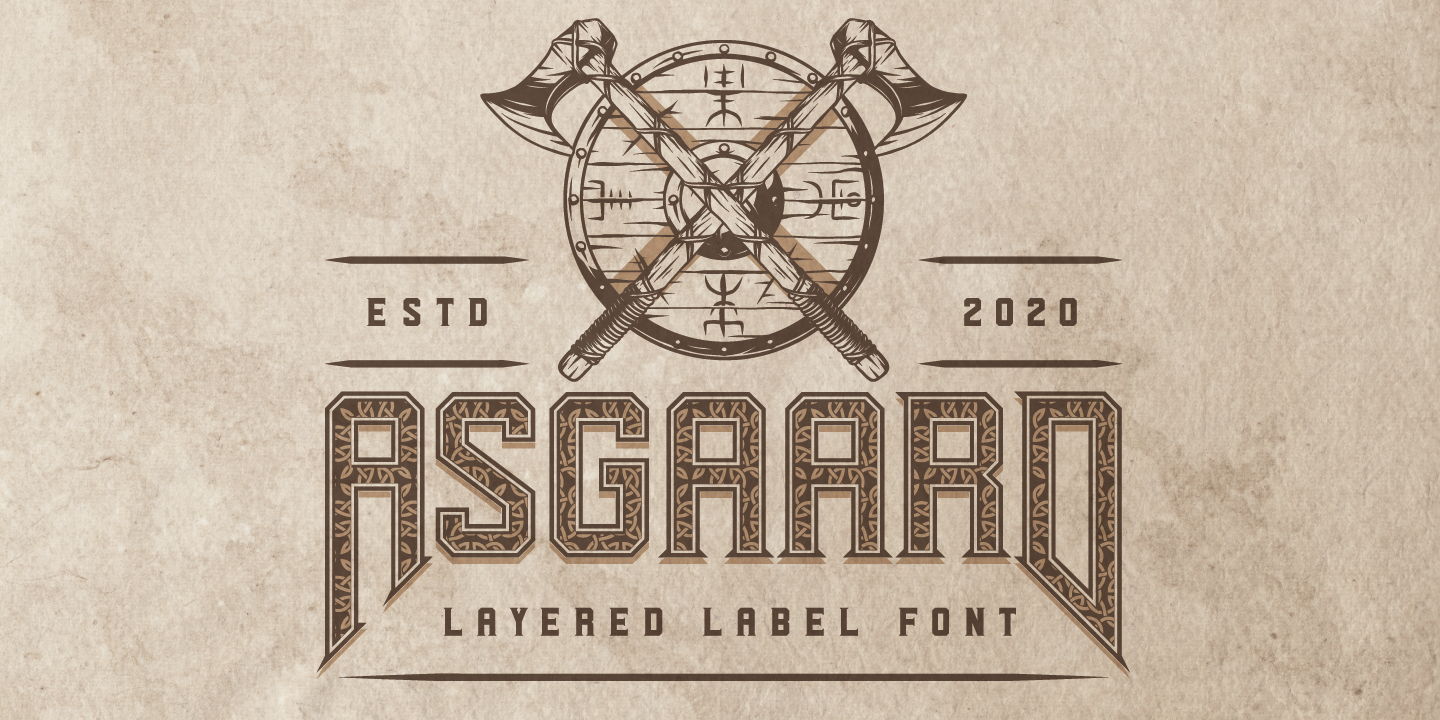
Asgaard Font is perfect for Norse mythology branding, Viking-themed gaming graphics, medieval fantasy book covers, Nordic restaurant signage, mythological entertainment designs, runic artifact replicas, Scandinavian heritage projects, and epic designs that require authentic Norse power and legendary Viking authenticity.
This font is exciting because it channels the mythical power of Asgard through its bold, runic letterforms that seem carved by the gods themselves from ancient stones and sacred trees. The legendary character design embodies the strength and wisdom of Norse mythology, making it perfect for brands seeking to convey epic storytelling, ancestral power, and the timeless appeal of Viking heritage.
Asgaard Font belongs to the Norse mythology font family, featuring Viking styling and runic elements that enhance its authenticity for fantasy and heritage-focused design applications.
Whether you're creating Norse gaming branding or Viking heritage graphics, Asgaard Font Free Download delivers maximum mythological impact and Nordic authenticity. This typeface perfectly captures the essence of ancient Norse culture while maintaining excellent functionality for contemporary entertainment applications. The font's powerful presence works exceptionally well in gaming titles, fantasy communications, and heritage materials, providing strong readability while maintaining its runic character that transforms any design with mythological strength and creates unforgettable epic experiences across all media platforms and Norse entertainment communications.